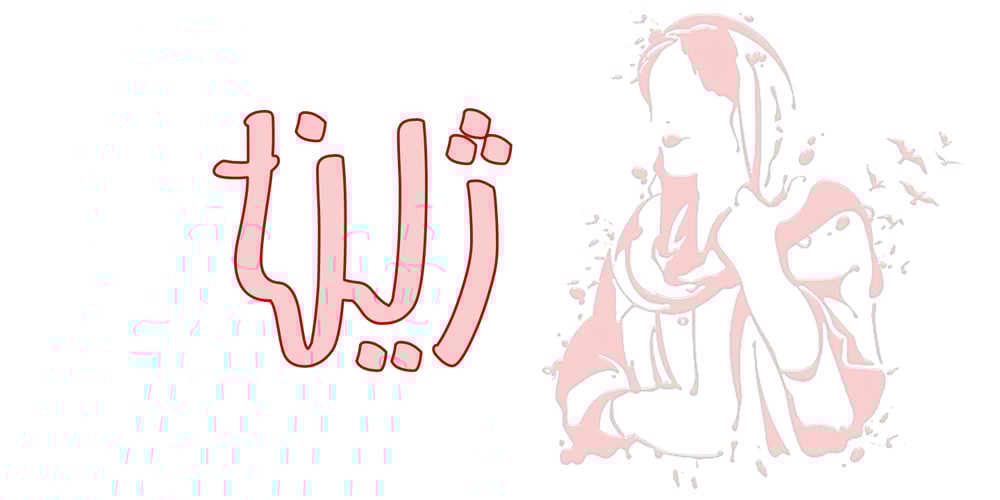
Zhina Font Family was designed by Aria Fakhari and published by Fakharia. Zhina contains 4 styles and family package options. Zhina (ژینا, Life-giving “In memory of Zhina/Mahsa Amini”) represents the inaugural graffiti font within the Perso-Arabic script, facilitated by the innovative design of the ARTIN writing system.Unlike traditional Arabic fonts, all four styles in this family feature disconnection between the letters. Additionally, the capitalized (Isolated) letters have been altered from their usual horizontal extension to a vertical extension. This change is intended to create a cohesive look that is especially appropriate for horizontal writing.The zhina LP (Less Point) regular denotes the dot-reduced version, wherein glyphs containing two or more dots are substituted with new dotless shapes. It is important to note that, with the exception of the zhina regular style, all other styles utilize the reduced dots alphabet.The zhina MC (Mixed Case) regular font effectively emulates Latin typographic styles, enabling users to switch between lowercase (Initial) and uppercase (Isolated) letters via a software Caps Lock key. This software-based Caps Lock functionality may be activated or deactivated by inputting the Tatweel character. more…The final style is the All Caps (zhina AC regular) version of this font family.Please note that there are additional styles available within the zhin font family that you may find relevant.